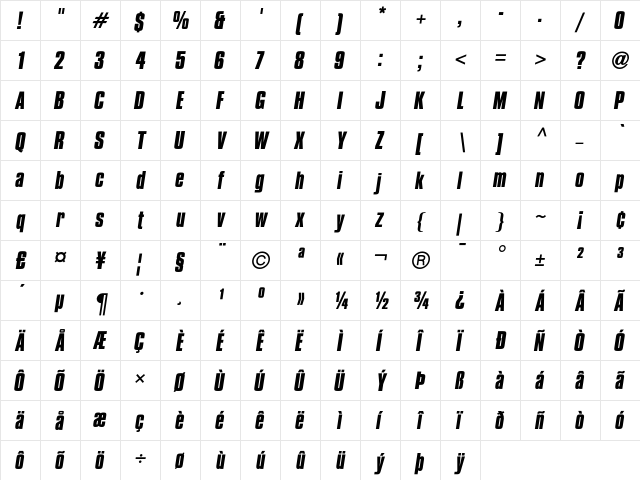
CompactaICG BoldItalic Font Preview
Design Context for CompactaICG Typeface
CompactaICG takes a measured approach to typography — its balanced proportions and neutral character make it a reliable workhorse for both digital and print work. Its italic angle brings a sense of urgency and motion to the letterforms. The heavy weight commands attention and anchors typographic hierarchies. The condensed width makes it efficient for tight spaces without sacrificing legibility.
Pro Tip: Use CompactaICG for emphasis, pull quotes, and subheadings where its slanted energy can add rhythm to the layout.